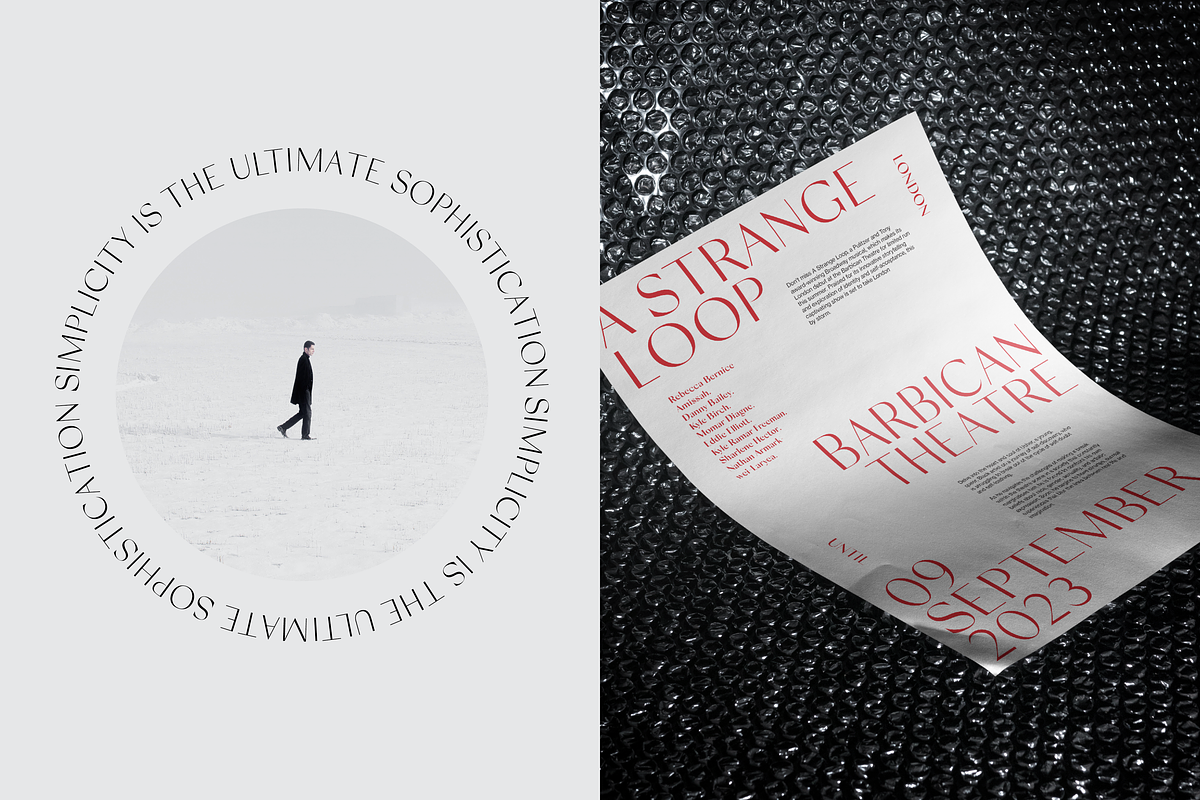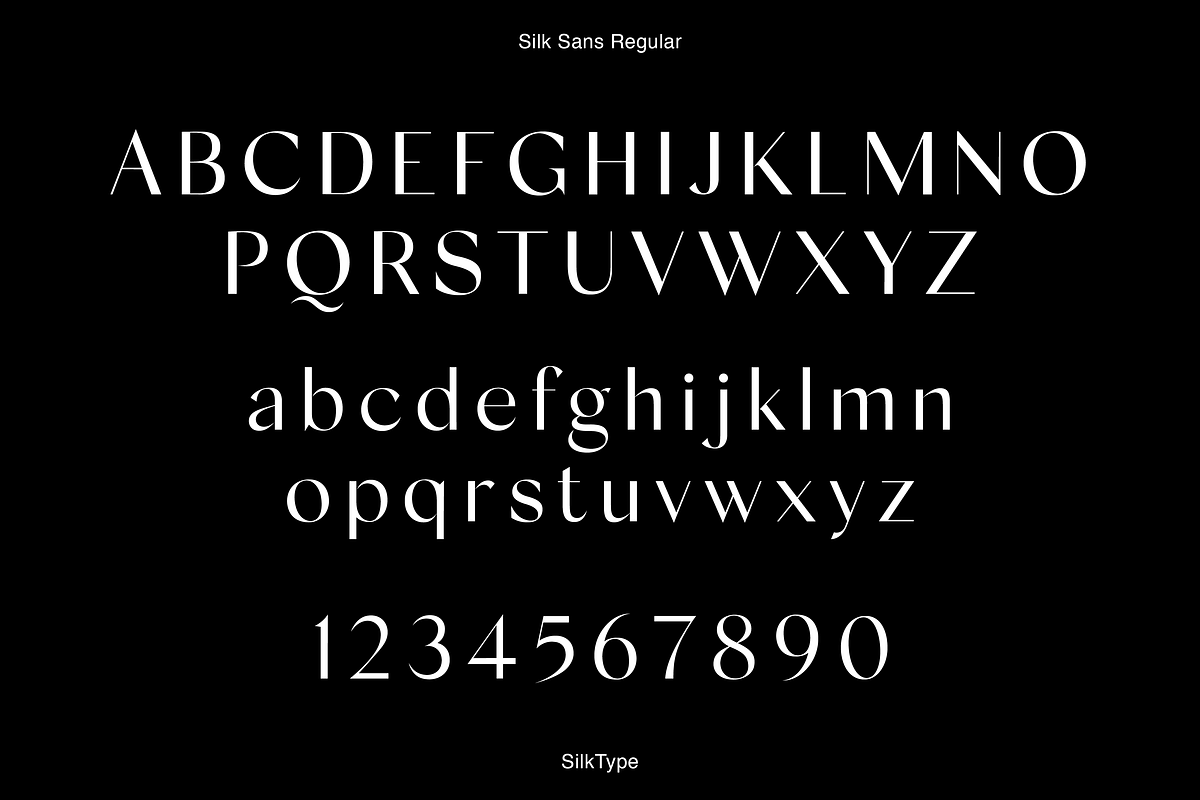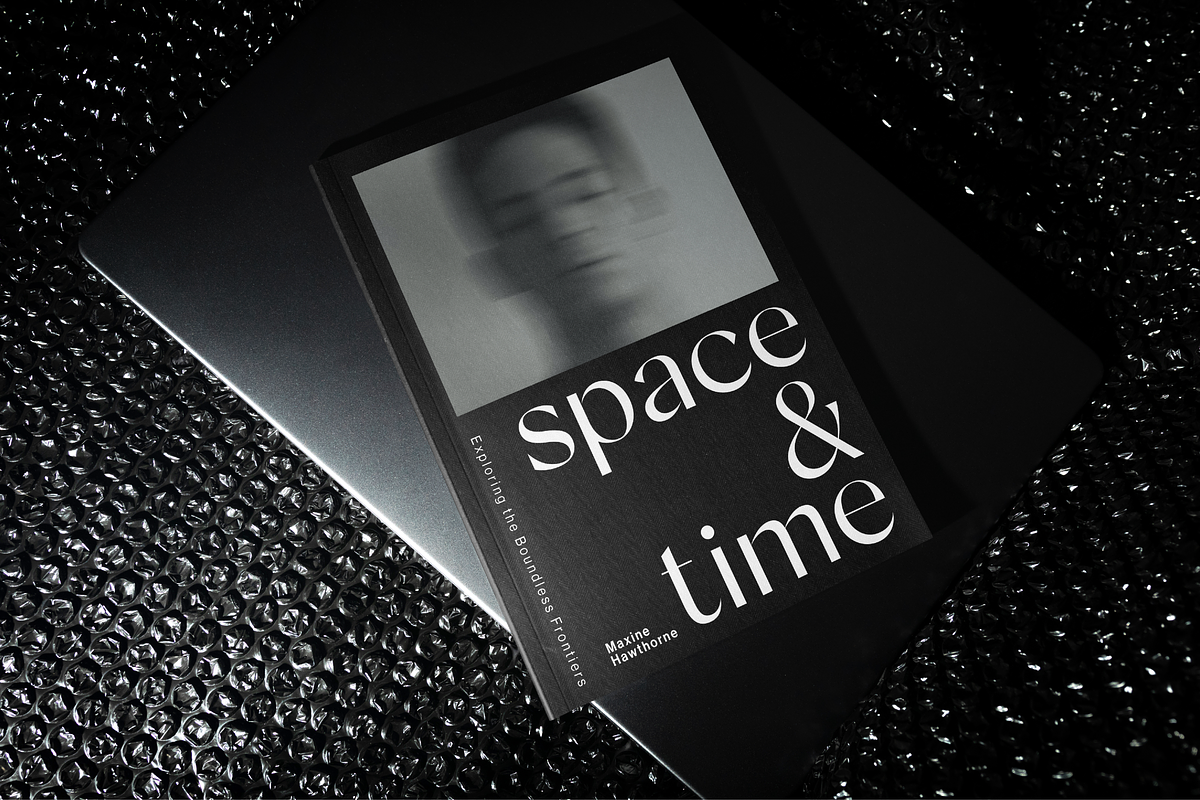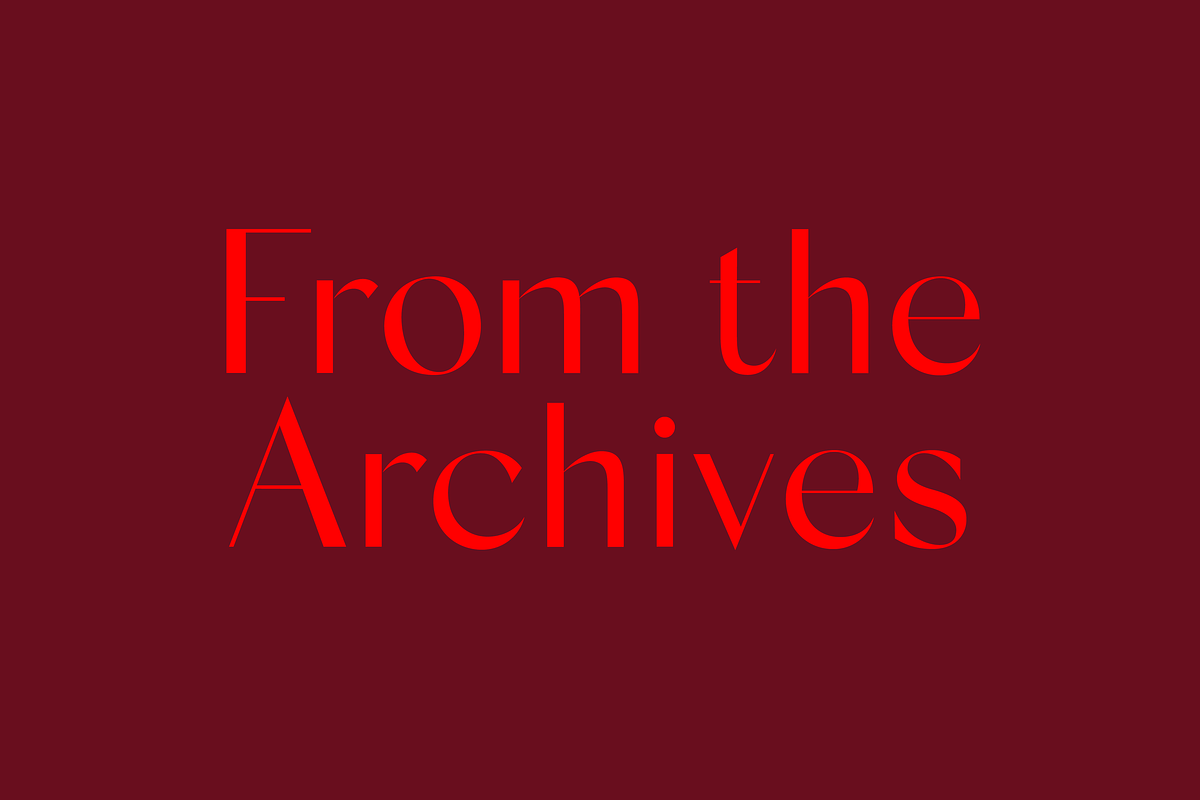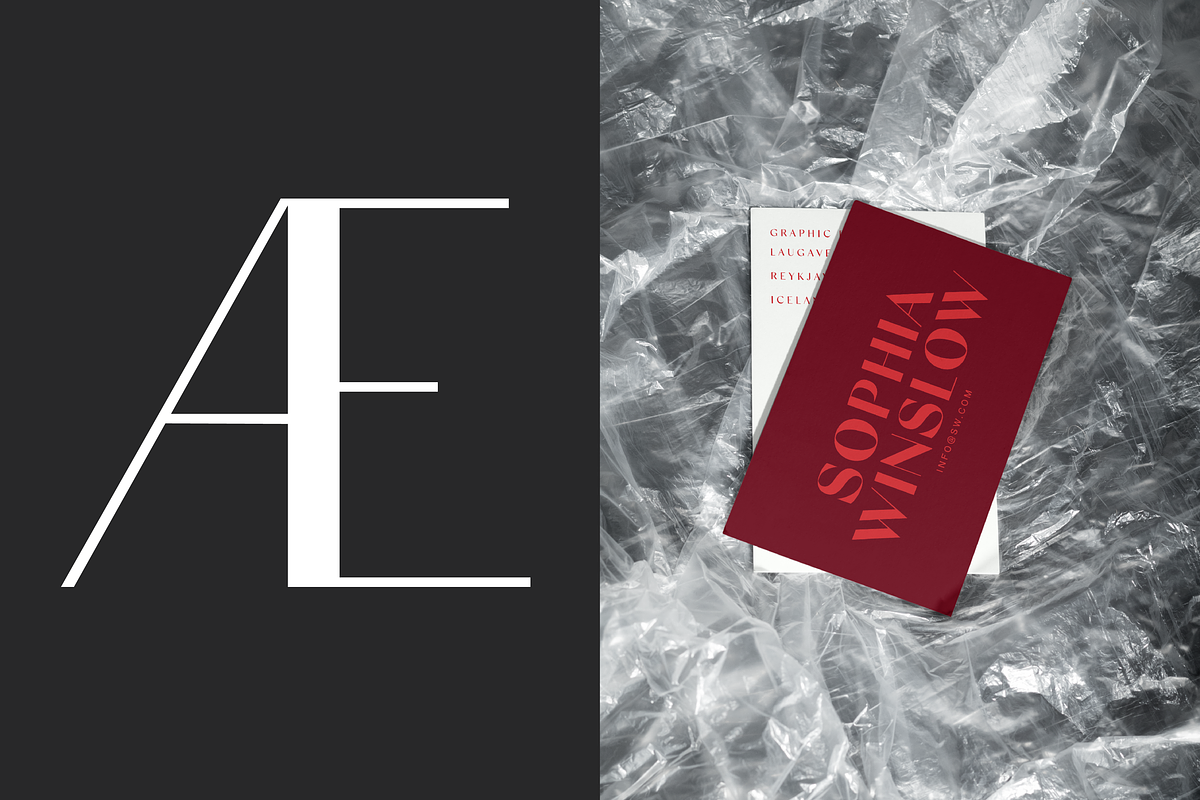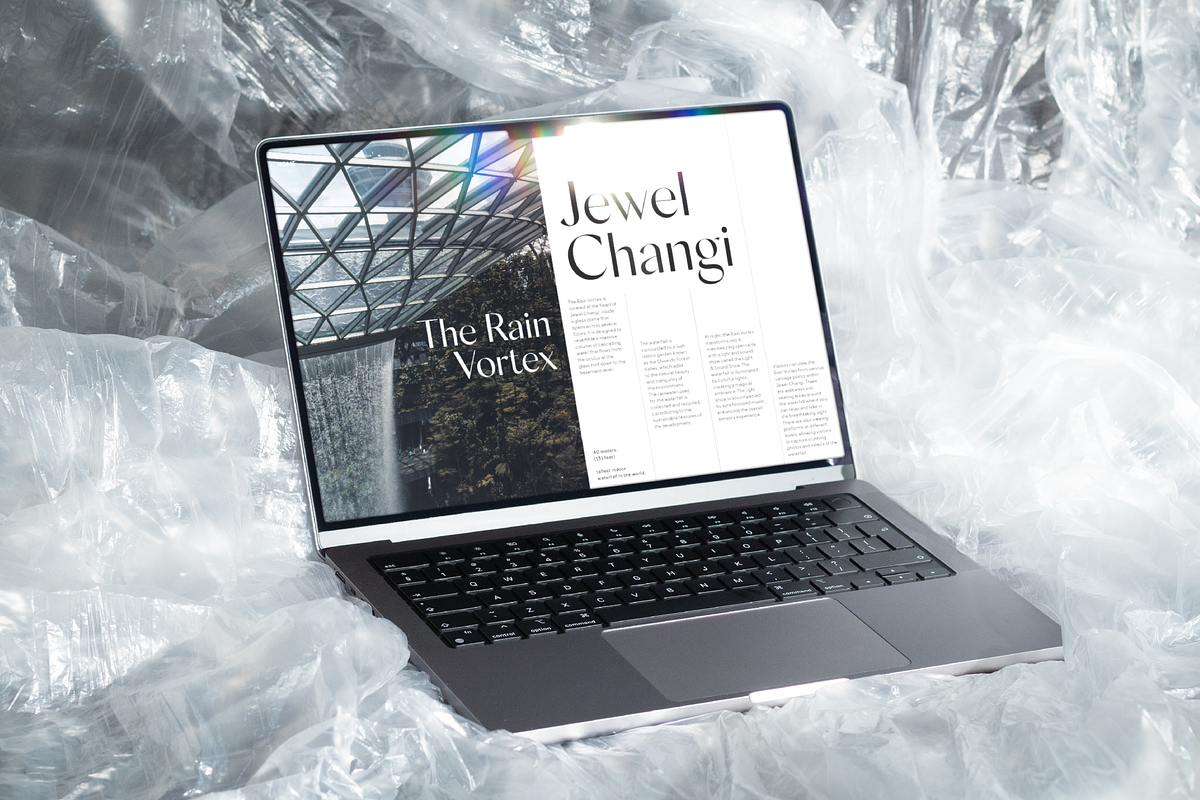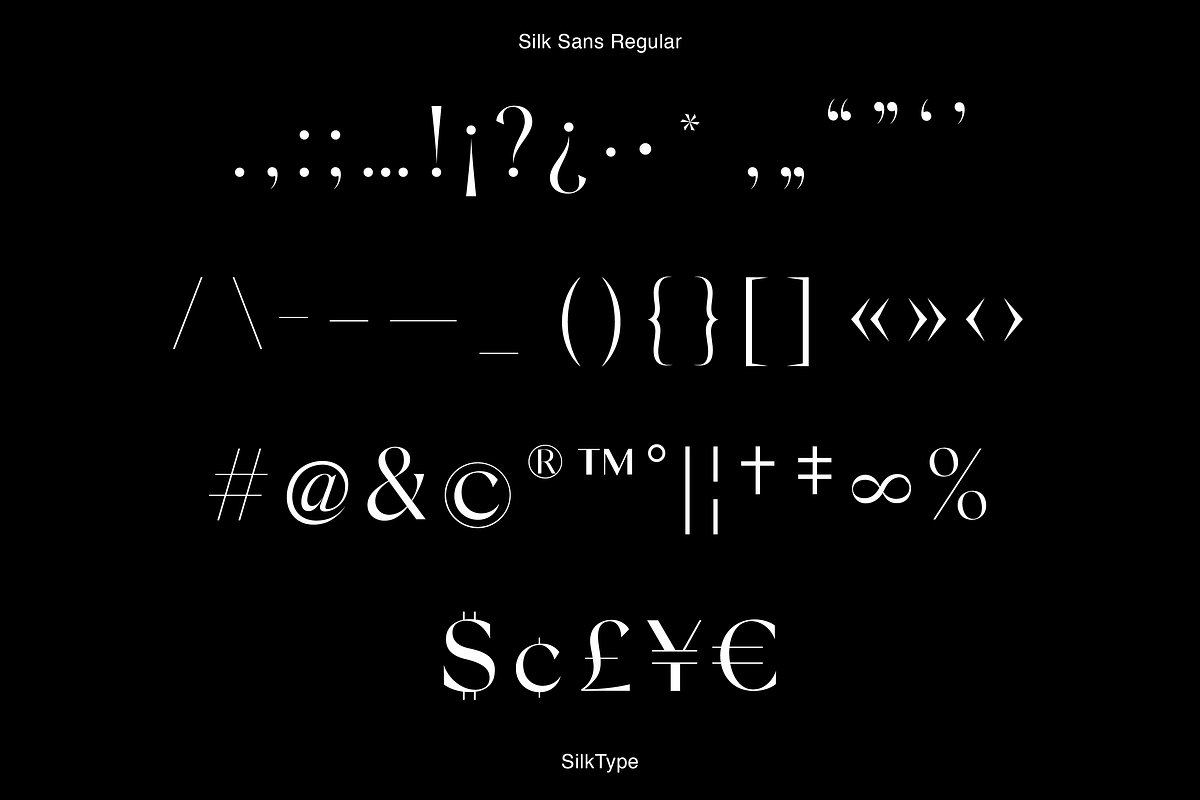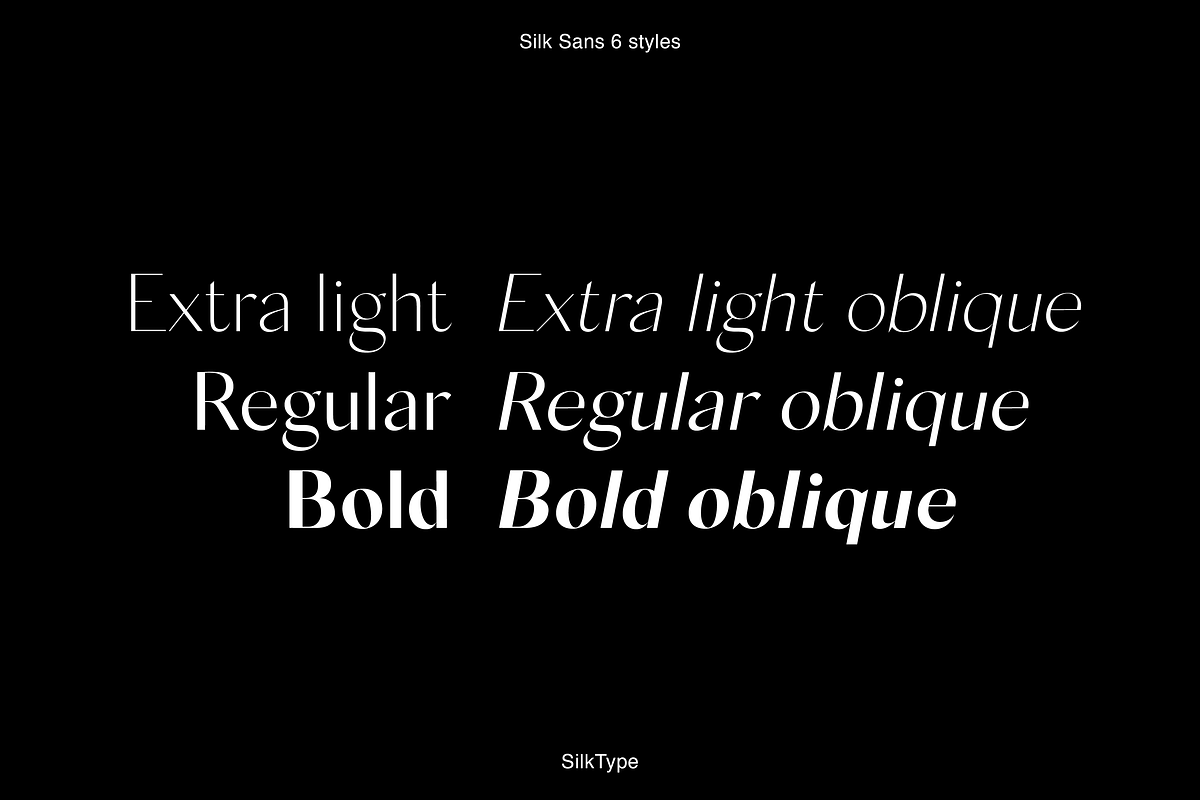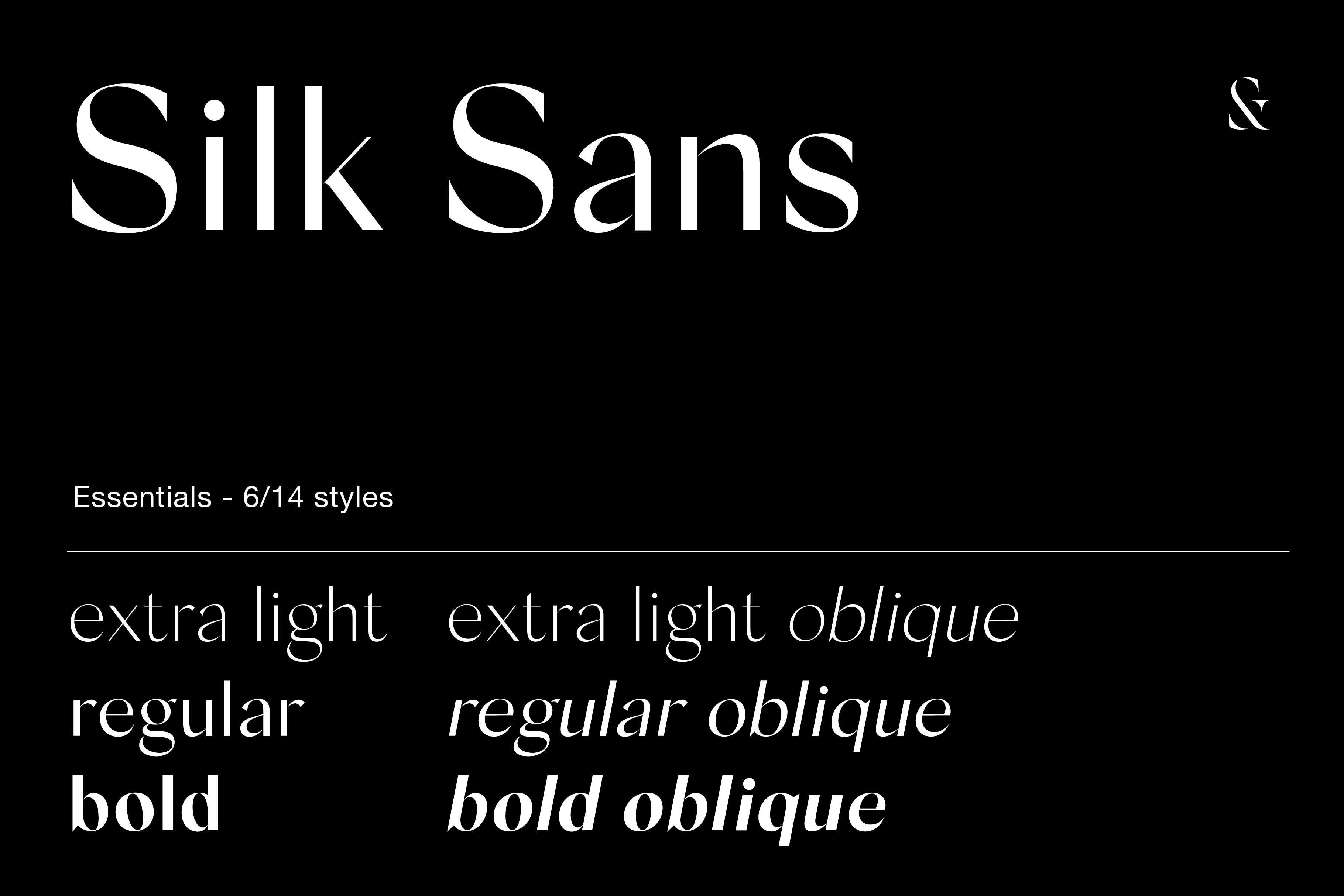
Silk Sans - 6 font family
Silk Sans Display is the sans version of the high-contrast typeface Silk Serif. The main feature of the font family is the disconnection between the bowls and the stems. However, the bowl is very close to the stem, creating the illusion of connection. Silk is delicate and legible — but above all, it is sophisticated.